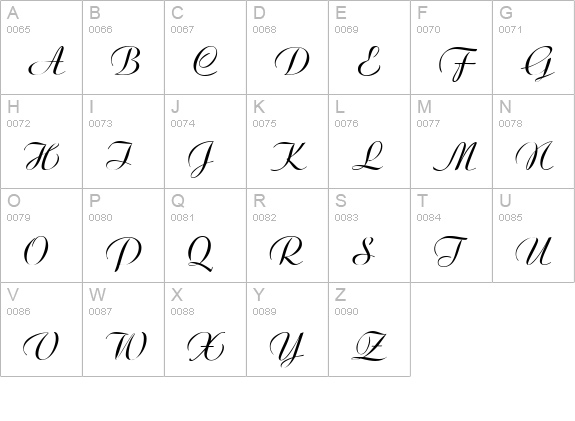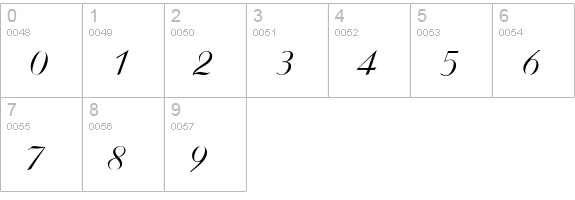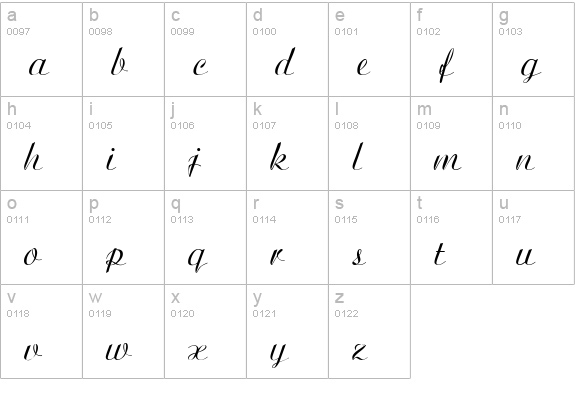
Agnes-Regular Font Details
Agnes-Regular is the standard, neutral variant in the Agnes typeface family \xE2\x80\x94 well suited to general body text, paragraphs, and standard typographic work.
Agnes-Regular font is a versatile and elegant typeface that exudes a sense of sophistication and charm. Its clean lines and classic design make it perfect for a wide range of projects, from branding to editorial design. The timeless appeal of Agnes-Regular font makes it a popular choice for designers looking to add a touch of class to their work. One of the best things about Agnes-Regular font is that it is completely free to download at FontsMarket.com. This means that you can access this beautiful typeface without having to worry about breaking the bank. Whether you are working on a personal project or a client's design, Agnes-Regular font is a fantastic option that won't cost you a dime. With its modern yet timeless design, Agnes-Regular font is sure to elevate any project it is used in. So why not head over to FontsMarket.com today and download this stunning typeface for free?